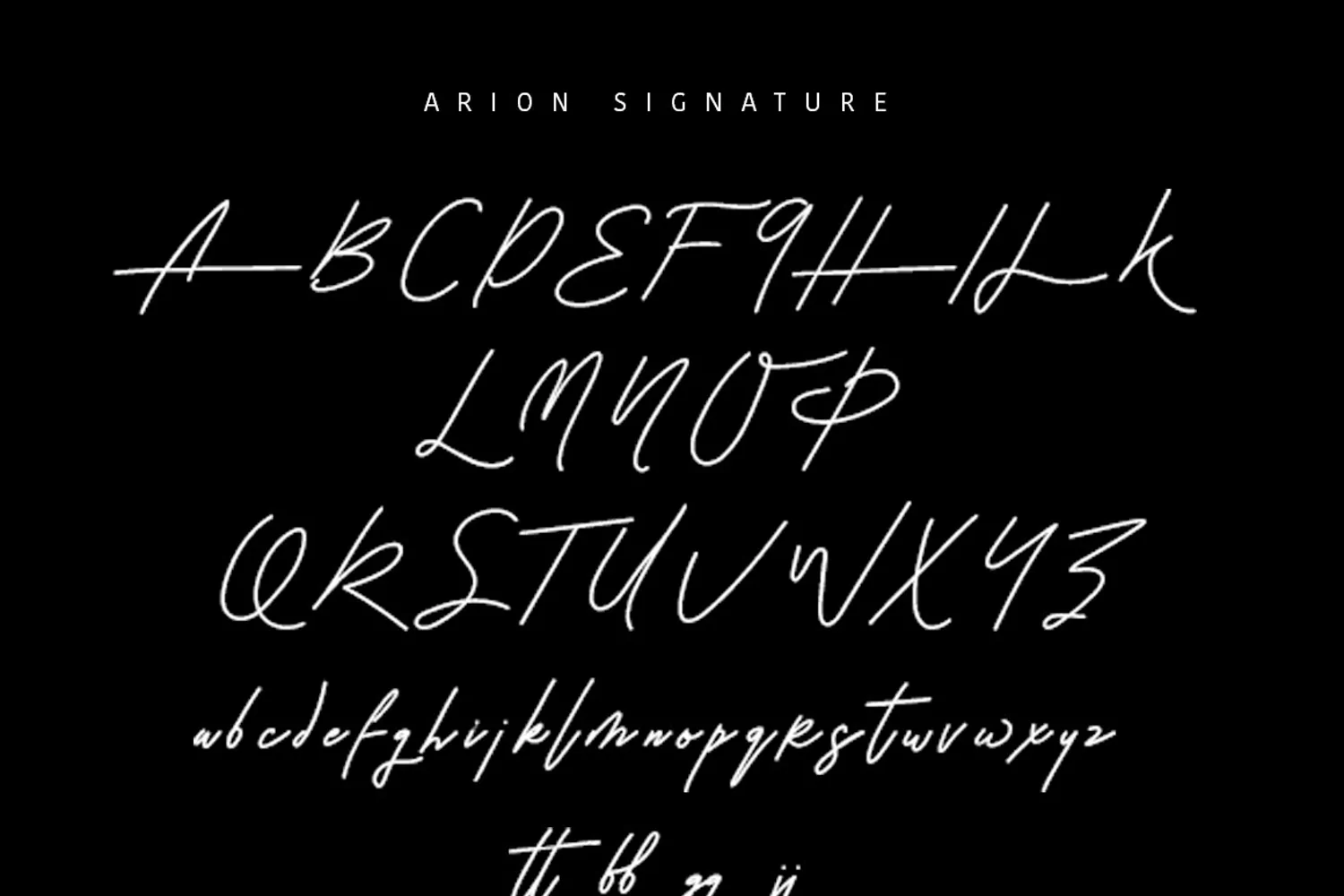
Hello,Introduce, my name is Arion Signature typeface, I was made by authentic handwriting. I made it because want to make it to easier create a signature. You have the advantage of making a beautiful logo, beautify a t-shirt design, and you can make it easier of work on create packaging design, and more.In this zip files included 4 files: